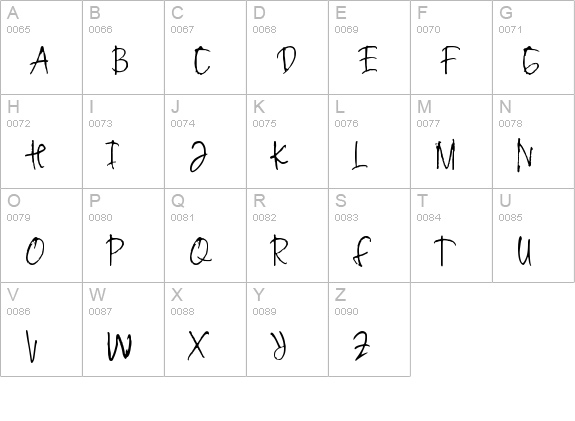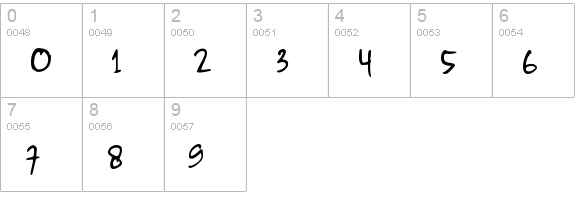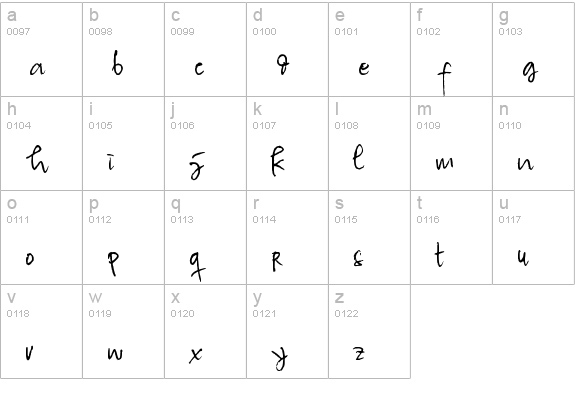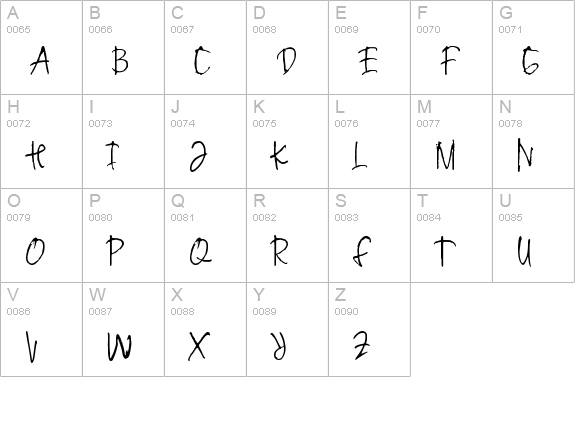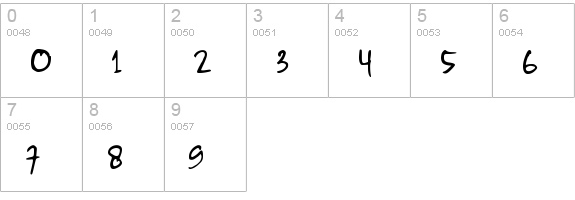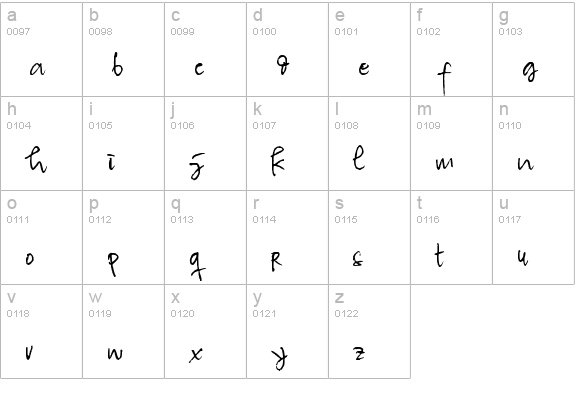
Tracers - Handmade Script Font Font Details
Tracers - Handmade Script Font is a free for personal use font in the Script > Handwritten category, designed by Omotu. It has been downloaded 98 times and is available for Windows, Mac and Linux.
Tracers is a beautifully crafted handmade script font that exudes elegance and charm. Its flowing lines and organic feel make it perfect for a variety of design projects, from wedding invitations to branding materials. This versatile font is sure to add a touch of sophistication to any project.